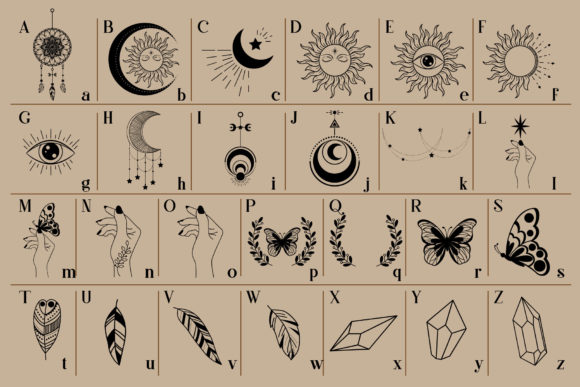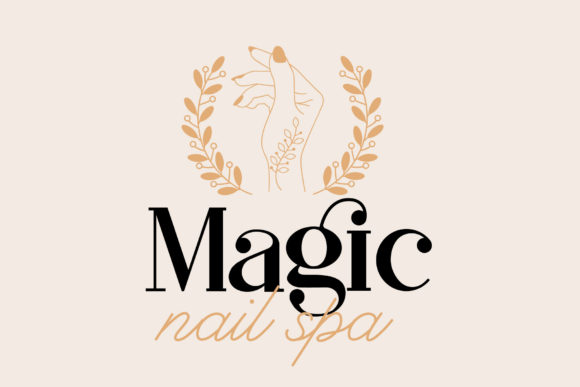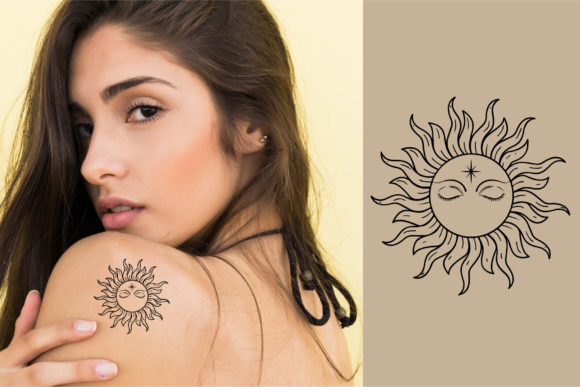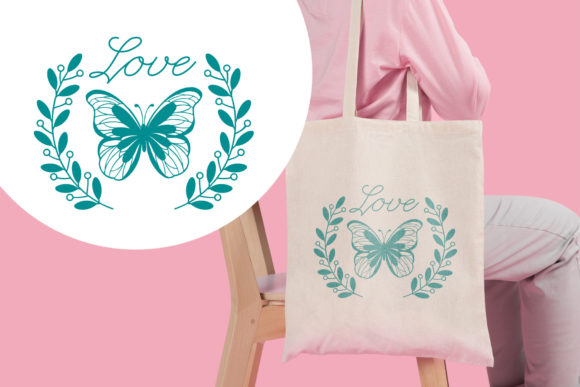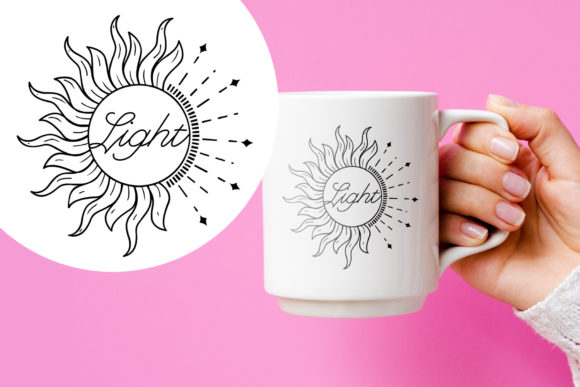
Unlock the Whimsy of Boho Magic Font: A Bohemian Dingbats Delight
Are you a designer, crafter, or DIY enthusiast looking for a font that embodies the free-spirited essence of bohemian style? Look no further than Boho Magic Font, a unique dingbats font that is sure to add a touch of whimsy and magic to your projects. In this article, we’ll dive into the world of Boho Magic, exploring its features, uses, and benefits, and why it’s a must-have for anyone who loves bohemian-inspired designs.
What is Boho Magic Font?
Boho Magic Font is a one-of-a-kind dingbats font, carefully crafted in a bohemian style that exudes a sense of freedom and creativity. The font is designed to resemble the eclectic, mix-and-match aesthetic often associated with bohemian fashion and art. With its intricate details and curvaceous lines, Boho Magic Font is perfect for adding a touch of bohemian flair to any design project.
Features of Boho Magic Font
So, what makes Boho Magic Font so special? Here are just a few of its standout features:
- Unique Dingbats Design: Boho Magic Font features a range of unique dingbats, including flowers, leaves, feathers, and other bohemian-inspired motifs.
- Bohemian Style: The font is designed in a distinctly bohemian style, with intricate details and curvaceous lines that evoke a sense of free-spirited creativity.
- Versatile: Boho Magic Font can be used for a wide range of projects, from tattoos and wedding cards to designs for printing on shirts, bags, mugs, and more.
Uses for Boho Magic Font
So, what can you use Boho Magic Font for? The possibilities are endless! Here are a few ideas to get you started:
- Tattoos: Boho Magic Font is perfect for tattoo designs, with its intricate details and bohemian-inspired motifs.
- Wedding Cards: Add a touch of whimsy and romance to your wedding cards and stationery with Boho Magic Font.
- Apparel: Use Boho Magic Font to create unique and eye-catching designs for printing on shirts, hoodies, and other apparel.
- Home Decor: Boho Magic Font is also great for designing home decor items, such as wall art, throw pillows, and tote bags.
Benefits of Using Boho Magic Font
So, why choose Boho Magic Font for your next project? Here are just a few benefits of using this unique dingbats font:
- Adds a Touch of Whimsy: Boho Magic Font adds a touch of whimsy and magic to any design project, making it perfect for bohemian-inspired designs.
- Standout Designs: With its intricate details and curvaceous lines, Boho Magic Font helps you create standout designs that are sure to grab attention.
- Versatile: Boho Magic Font can be used for a wide range of projects, making it a great addition to any designer’s toolkit.
In conclusion, Boho Magic Font is a unique and versatile dingbats font that is perfect for designers, crafters, and DIY enthusiasts who love bohemian-inspired designs. With its intricate details, curvaceous lines, and bohemian style, Boho Magic Font is sure to add a touch of whimsy and magic to any project. Whether you’re creating tattoos, wedding cards, or designs for printing on apparel and home decor, Boho Magic Font is a must-have font that is sure to inspire your creativity.